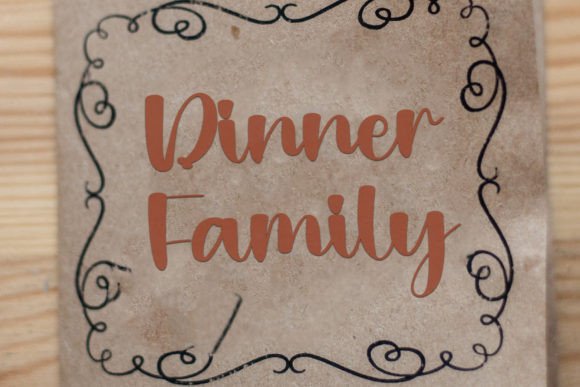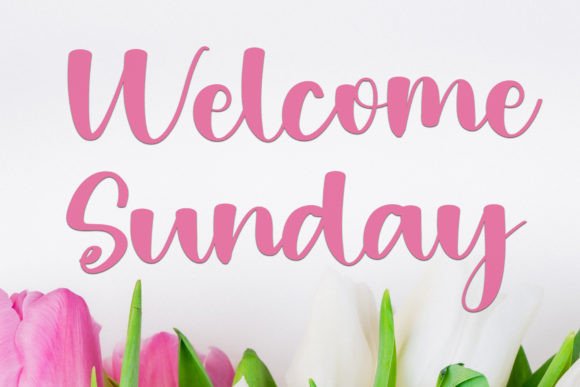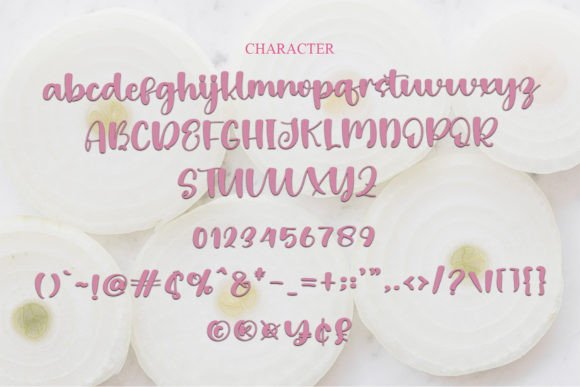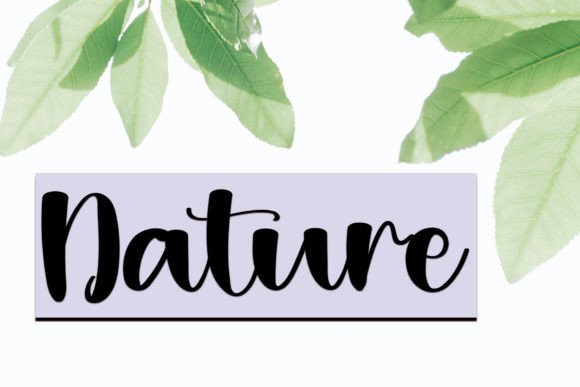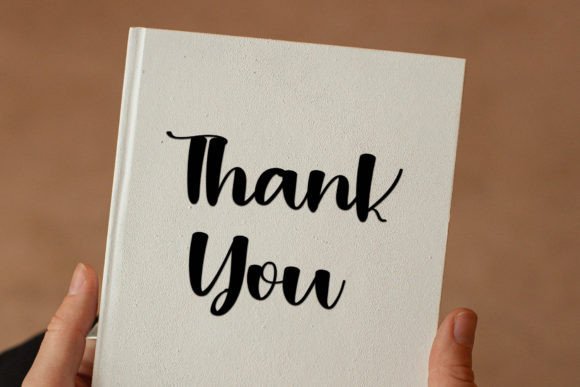
Getting the Perfect Touch: Discover the Allure of Help Font
Have you ever been stuck on a design project, staring blankly at a blank page, and wondering what’s missing? It’s that one element that sets your creation apart from the rest – a spark of personality, a dash of whimsy, or a hint of romance. For designers, finding that elusive touch can be a game-changer.
Enter Help Font, an enchanting handwritten font that’s ready to add that special something to your next project. This versatile script font is designed to transport your audience to a world of warmth and intimacy, making it perfect for greeting cards, wedding invitations, or even bold headlines. With its wide range of applications, Help Font is a valuable addition to any designer’s toolkit.
Whether you’re working on a high-end branding project or a personal creative endeavor, Help Font is sure to bring a touch of magic to your design. Its unique charm and versatility make it an essential resource for designers looking to add a personal touch to their work.
Help Font Key Features
- Unique Characteristic: Unique ligatures and contextual alternates that enhance readability and aesthetic appeal
Help Font Review
When I first started using “Help Font”, I was a bit skeptical. The name seemed a bit generic, and I wasn’t sure what to expect. But, after giving it a chance, I was pleasantly surprised by some of its features. ✨ Here are some of the things that work well:
- Good legibility: I’ve used “Help Font” in a variety of contexts, and it always seems to be easy to read.
- Modern aesthetic: The font has a clean, modern look that’s perfect for contemporary designs.
- Supports multiple languages: This is a big plus for me, as I often work with international clients.
However, there are also some limitations to be aware of. ⚠️ Here are a few:
- Limited personality: While “Help Font” is clean and modern, it’s not particularly distinctive or memorable.
- No bold/italic variants: This might be a problem for some designers who like to mix and match different font weights and styles.
- Not ideal for display text: While “Help Font” is great for body text, it’s not the best choice for headlines or other display text.
Overall, I think “Help Font” is a solid choice for everyday design work. It’s not particularly exciting, but it gets the job done. If you’re looking for a clean, modern font that’s easy to read, “Help Font” might be a good fit for you.
Help Font Practical Application Guide
The Help Font is ideal for:
- Creating instructional guides and tutorials.
- Designing user manuals and documentation.
- Developing educational materials and resources.
Getting the Most Out of the Help Font
To get the most out of the Help Font, follow these tips:
- Use it consistently throughout your project for a cohesive look.
- Experiment with different font sizes and styles to add emphasis and hierarchy.
- Combine the Help Font with other fonts to create visual interest and variety.
Alternatives to Help Font for Designers
Open Sans is a clean and modern sans-serif font that is highly legible and versatile. It is suitable for body text, headings, and even display text. Open Sans is a popular choice among designers due to its simplicity and wide range of applications. Compared to Help Font, Open Sans has a more contemporary feel and is more suitable for modern designs.